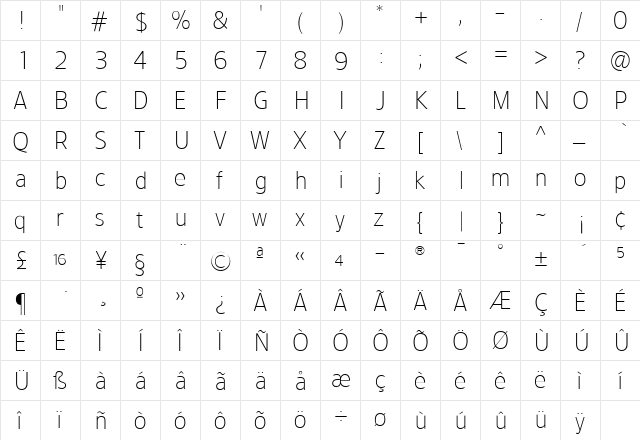
TFForeverTwo ExtraLight
| Foundry | J. Treacy,Treacyfaces,Inc |
| Year | 1988 |
Design Context for TFForeverTwo Typeface
TFForeverTwo offers clean, dependable letterforms without strong stylistic allegiance, making it a practical choice for designers who need flexibility. Its slender proportions lend an understated elegance to any composition.